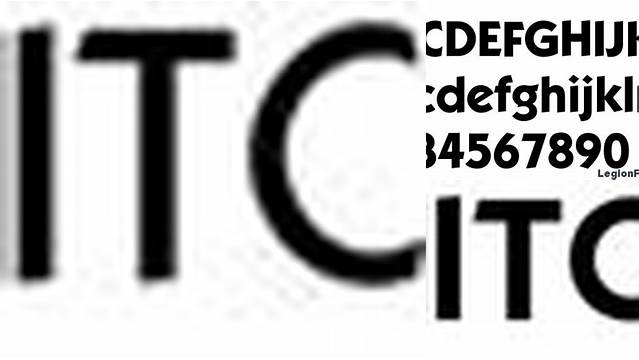
Hey guys! Ever stumbled upon a font that just clicks? For me, ITC Kabel Std Bold is one of those. It’s got this super clean, geometric vibe that makes it perfect for tons of different projects. Whether you're a seasoned designer or just starting out, understanding this font and where to snag it for free is a total game-changer. So, let's dive deep into the world of ITC Kabel Std Bold, explore its uses, and figure out where you can download it without emptying your wallet.
What is ITC Kabel Std Bold?
ITC Kabel Std Bold is a font that belongs to the ITC Kabel family, designed by Rudolf Koch in 1927. This font is a geometric sans-serif typeface known for its clean lines and distinct letterforms. The “Bold” variant adds extra emphasis, making it ideal for headlines, logos, and designs that need a strong visual impact. This font has a timeless quality, blending vintage charm with modern clarity, which is why it remains a favorite among designers today. The bold weight ensures readability across various mediums, from print to digital, making it a versatile choice for numerous design applications.
History and Origin of ITC Kabel Std Bold
The history of ITC Kabel Std Bold is as fascinating as the font itself. Designed by the legendary Rudolf Koch in 1927, it was initially inspired by the drawn lettering used for German postal service signage. Koch, a master calligrapher and type designer, aimed to create a typeface that was both modern and legible. The name “Kabel” comes from the German word for “cable,” reflecting the font’s early association with telecommunications. The bold variant was developed to provide a stronger, more impactful version of the original typeface. Over the years, ITC (International Typeface Corporation) acquired the rights, further popularizing it globally. Knowing the rich history behind ITC Kabel Std Bold adds depth to its appeal, making it more than just another font.
Key Characteristics of ITC Kabel Std Bold
One of the things that makes ITC Kabel Std Bold stand out is its unique characteristics. This font boasts clean, geometric shapes, giving it a modern and minimalist aesthetic. The bold weight enhances its readability, making it suitable for headlines, titles, and branding materials. Key features include its uniform stroke width, rounded terminals, and distinctive letterforms, which contribute to its overall legibility and visual appeal. The uppercase letters have a commanding presence, while the lowercase letters maintain a friendly and approachable feel. These characteristics make ITC Kabel Std Bold a versatile choice for various design projects, from corporate branding to editorial layouts.
Design Principles Behind ITC Kabel Std Bold
The design principles behind ITC Kabel Std Bold are rooted in the early 20th-century modernist movement. Rudolf Koch’s aim was to create a typeface that was both functional and aesthetically pleasing. The geometric shapes are a nod to the Bauhaus design philosophy, emphasizing simplicity and clarity. The uniform stroke weight ensures consistency, while the rounded terminals add a touch of warmth. The bold weight was intentionally chosen to provide maximum impact, ensuring that the font stands out in any context. Understanding these design principles helps appreciate why ITC Kabel Std Bold is so effective and enduring.
Why ITC Kabel Std Bold is a Popular Choice Among Designers
ITC Kabel Std Bold has remained a popular choice among designers for decades, and for good reason. Its clean, geometric design makes it incredibly versatile, fitting seamlessly into a wide range of projects. The bold weight commands attention, making it perfect for headlines and branding materials. Designers also appreciate its legibility, ensuring that text remains readable even at smaller sizes. Moreover, the font’s timeless quality means it never goes out of style. Whether used in print or digital media, ITC Kabel Std Bold offers a blend of classic appeal and modern functionality that designers find invaluable. It's a reliable workhorse that delivers professional results every time.
Best Uses for ITC Kabel Std Bold in Graphic Design
When it comes to graphic design, ITC Kabel Std Bold shines in numerous applications. Its strong, bold appearance makes it ideal for headlines and titles, grabbing the reader's attention instantly. It works wonderfully in logos and branding materials, conveying a sense of modernity and sophistication. The font’s excellent legibility also makes it suitable for body text in both print and digital formats. Think magazines, posters, websites, and even mobile apps. Its versatility extends to packaging design, advertising campaigns, and editorial layouts. If you need a font that’s both impactful and readable, ITC Kabel Std Bold is a fantastic option.
ITC Kabel Std Bold: A Timeless Font for Modern Design
ITC Kabel Std Bold stands as a timeless font that continues to thrive in modern design. Its enduring appeal lies in its clean, geometric design, which seamlessly blends classic typography principles with contemporary aesthetics. The font’s bold weight ensures it remains impactful across various applications, from digital interfaces to print media. Its versatility allows it to adapt to evolving design trends while maintaining its distinctive character. As modern design increasingly emphasizes simplicity and user-friendliness, ITC Kabel Std Bold remains a reliable choice for creating visually compelling and highly legible designs. Its legacy ensures it will continue to be a staple in the world of typography.